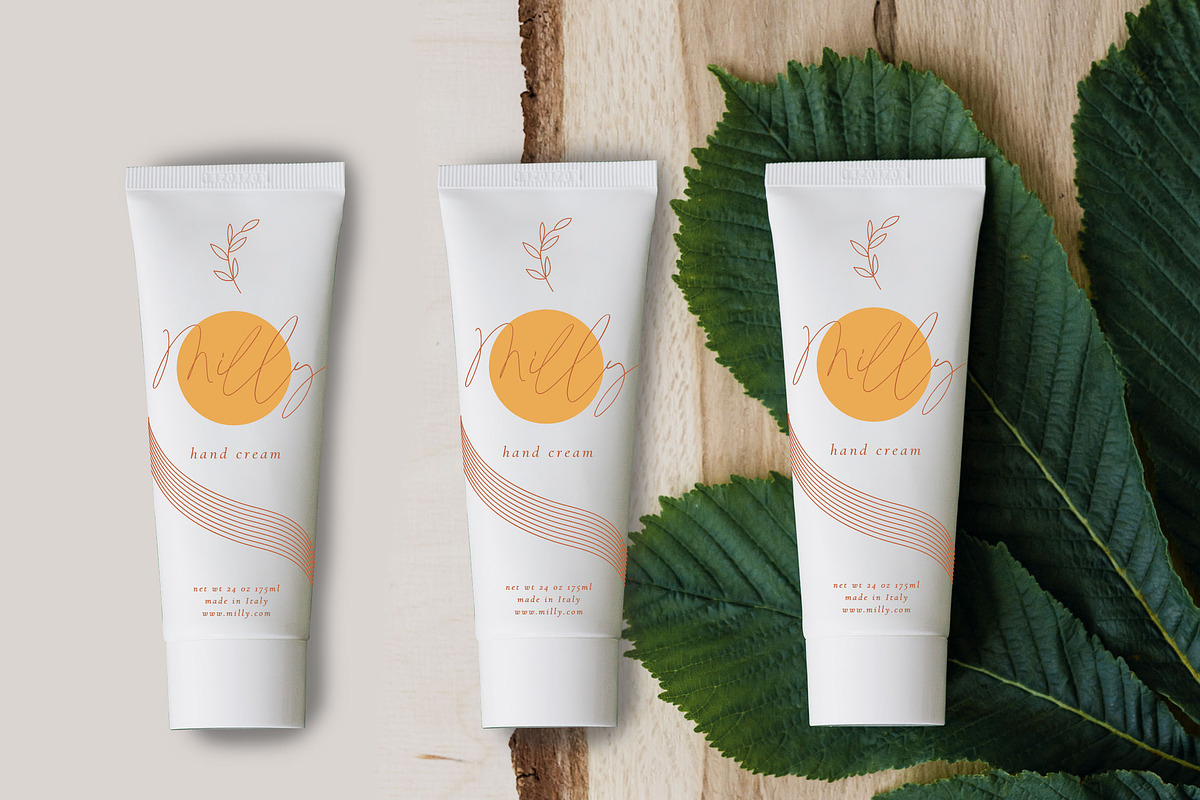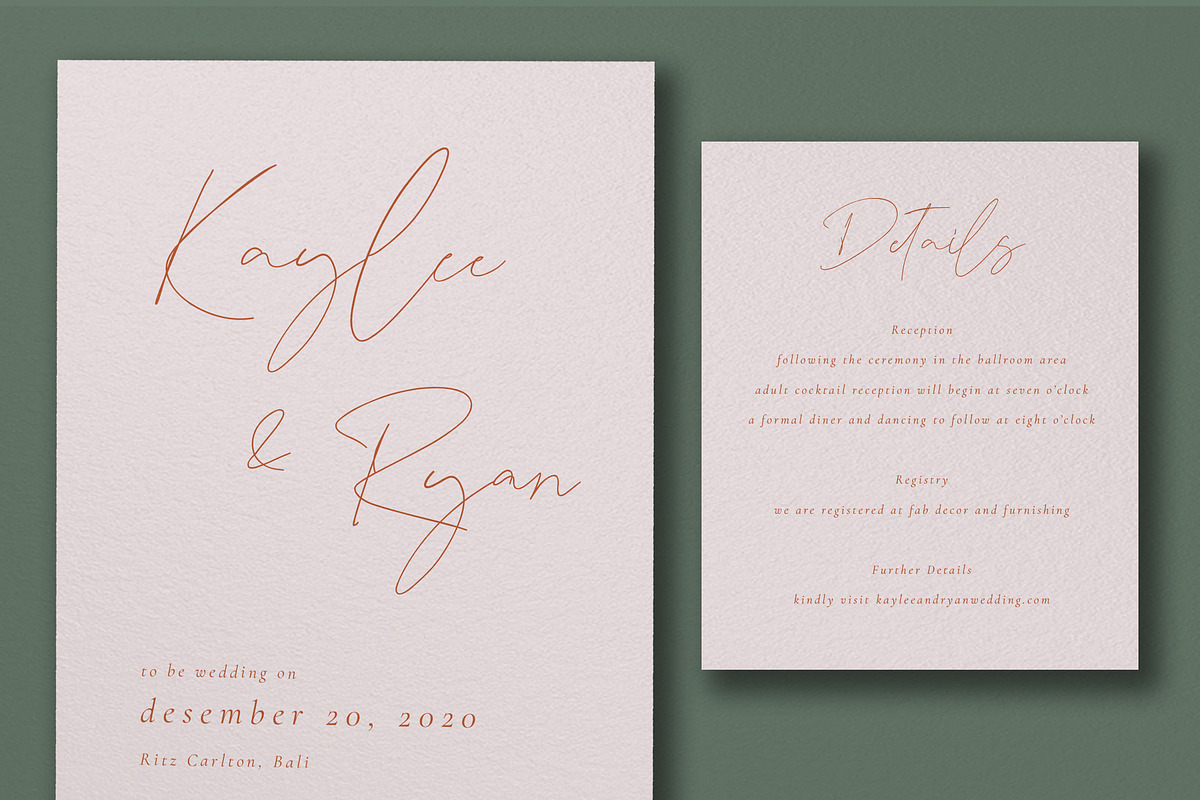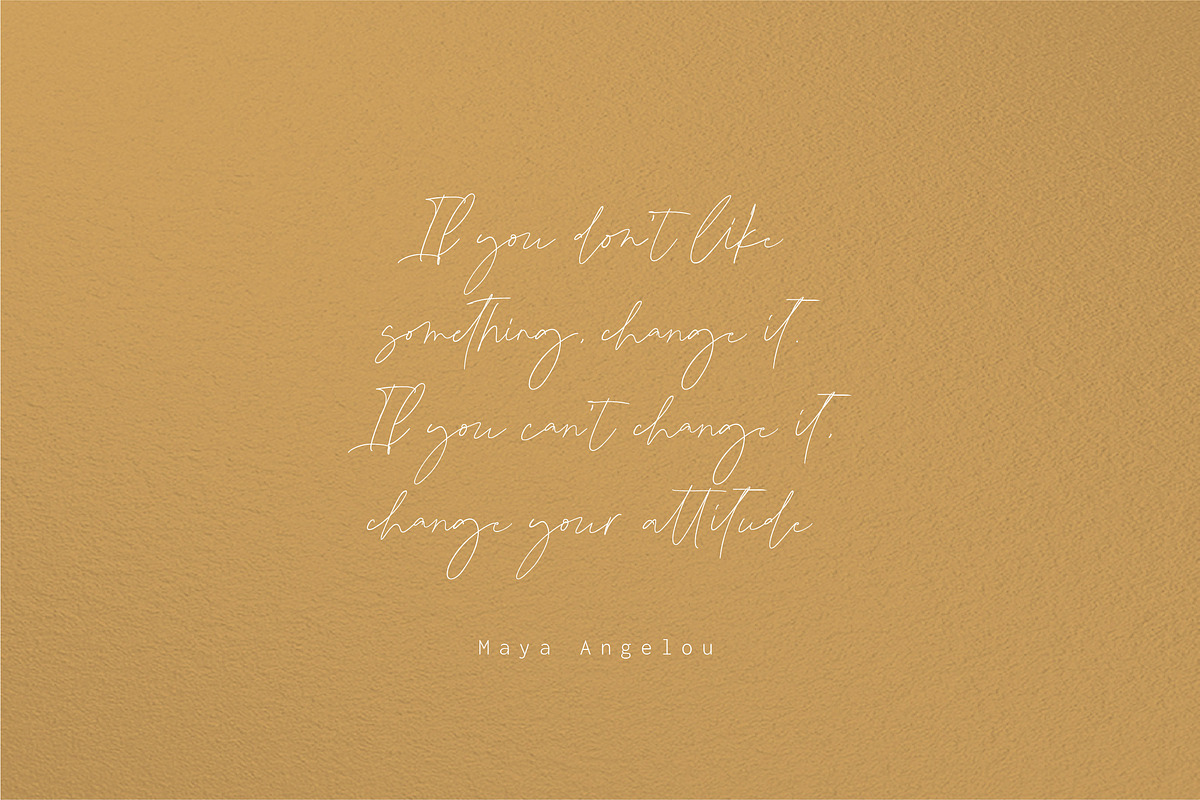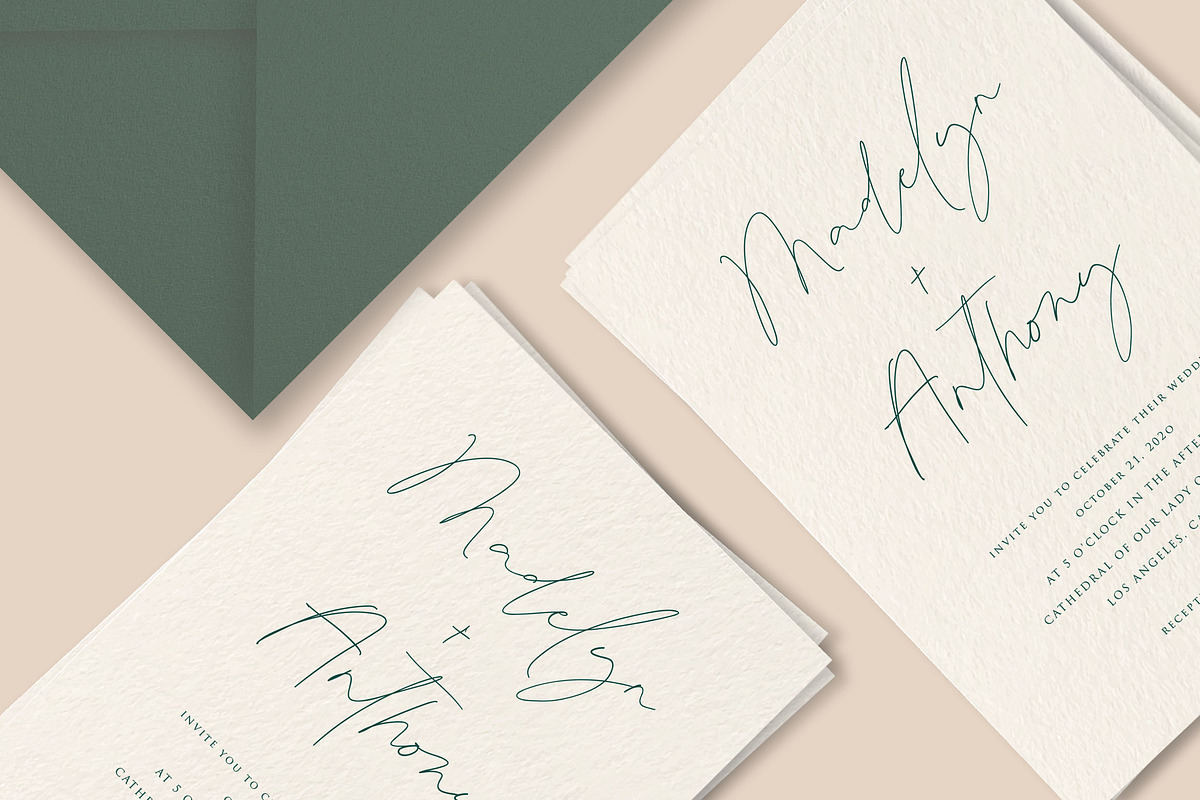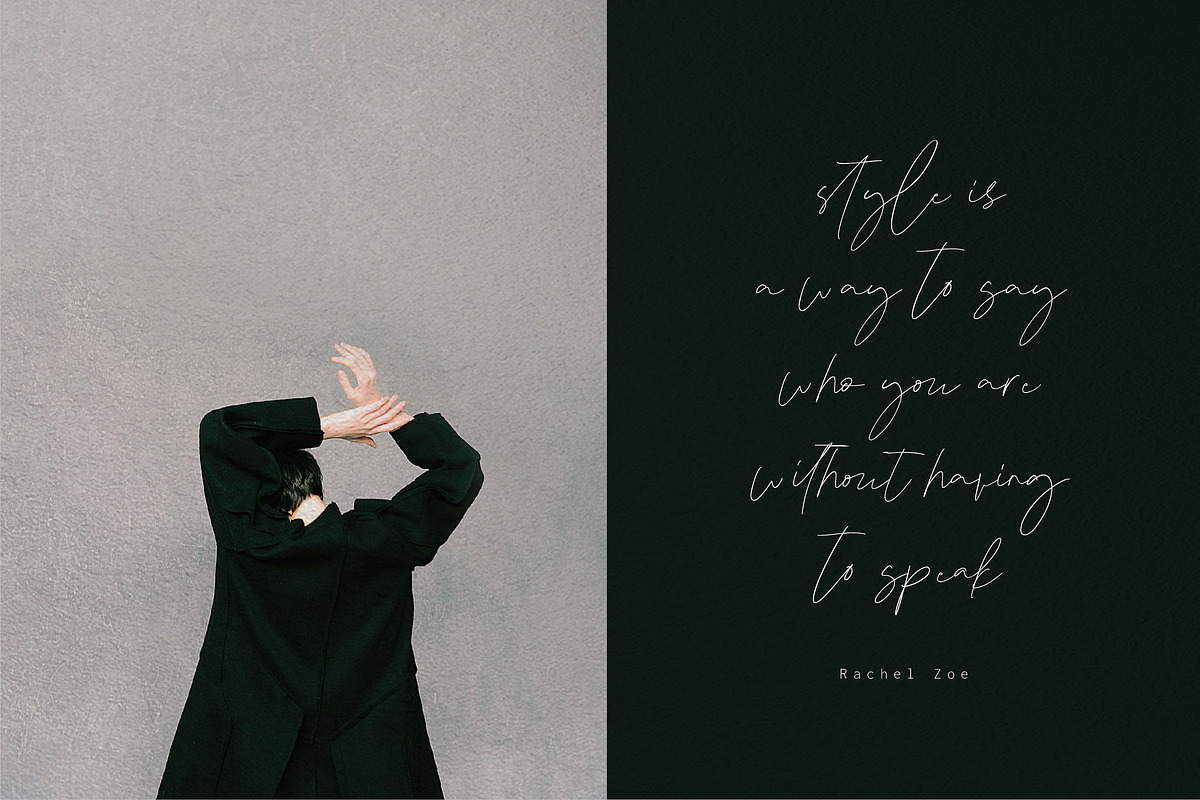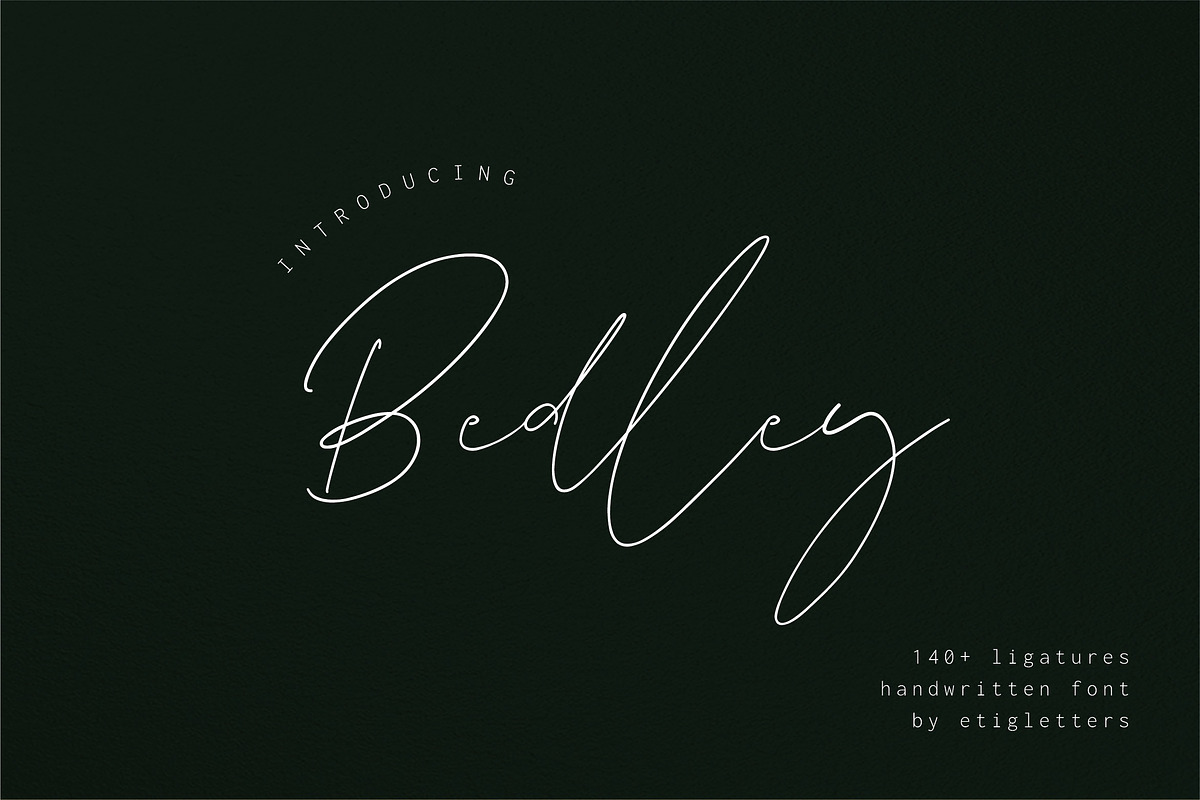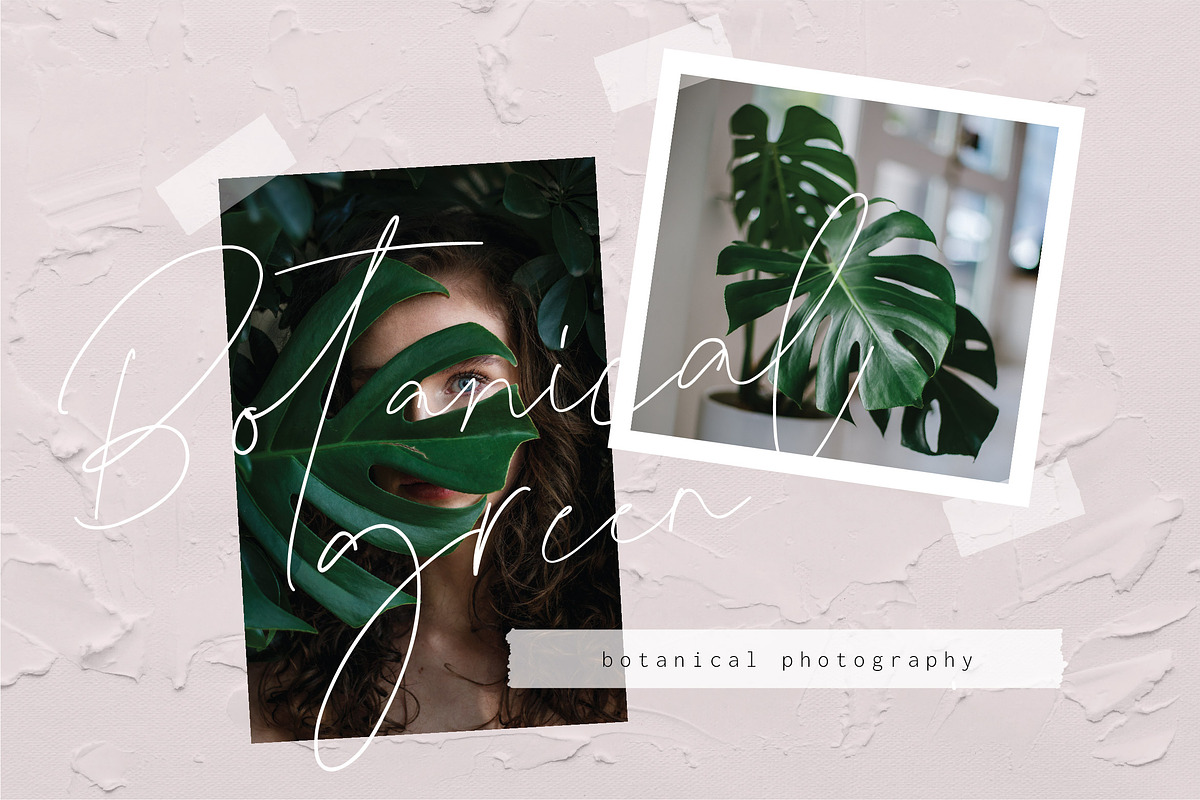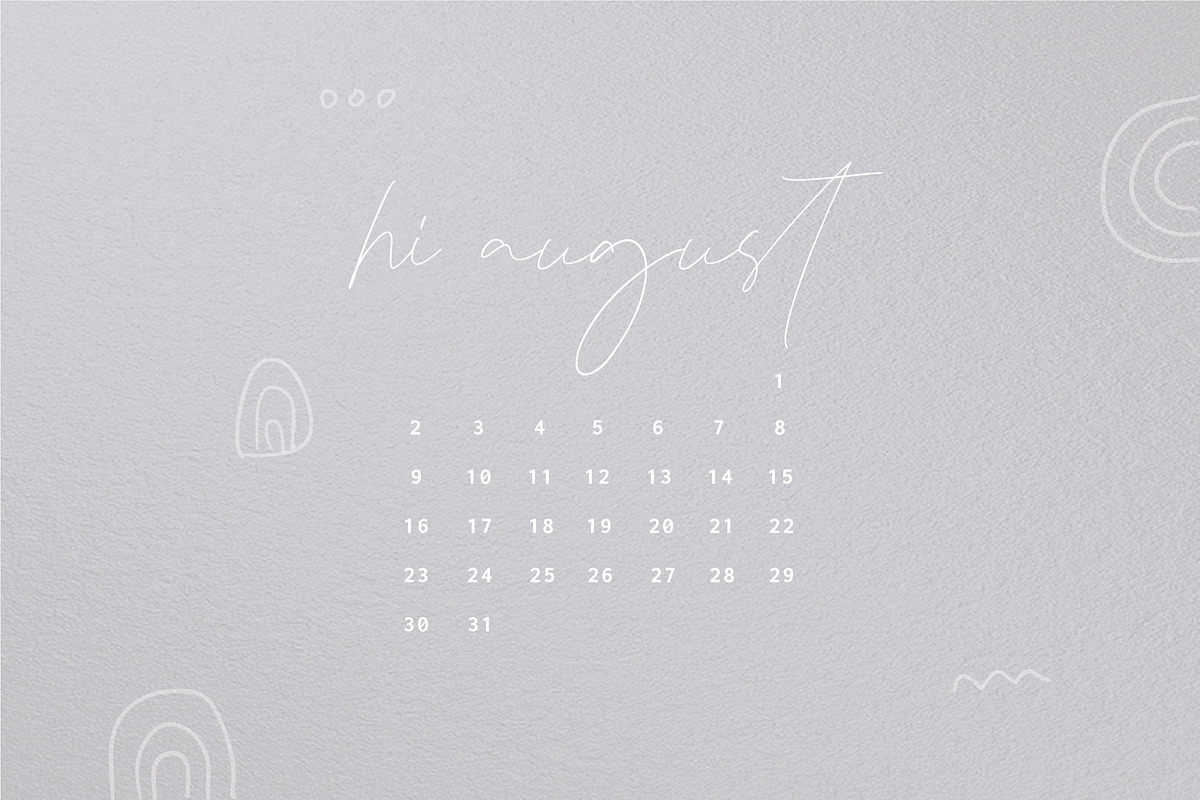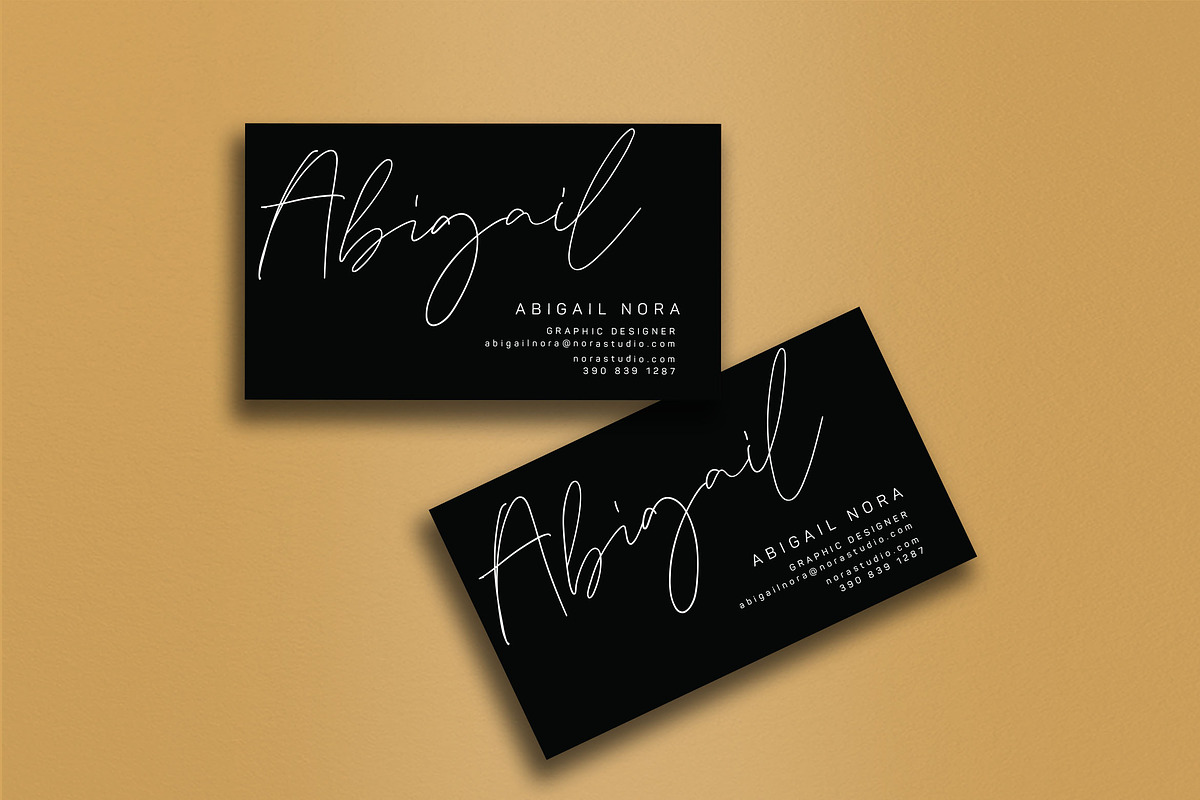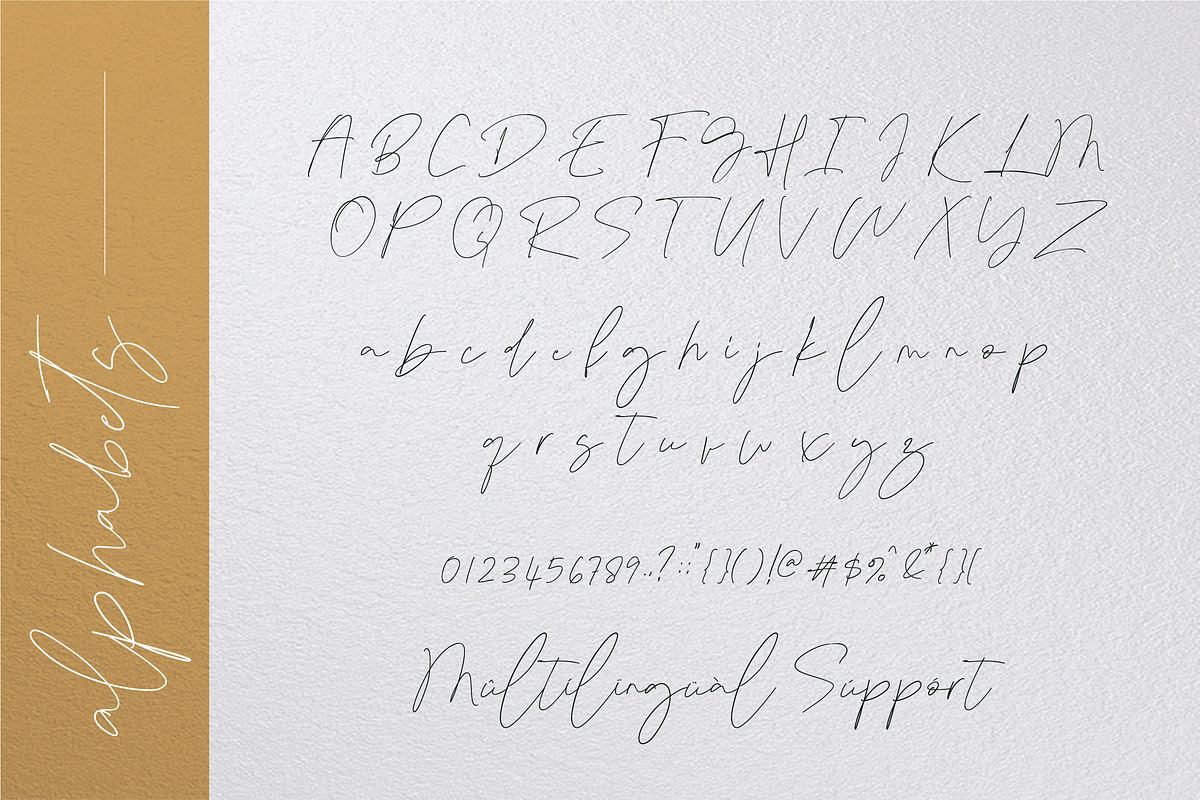
Bedley // Handwritten Font
Introducing Bedley font is a handwritten font with a signature style and bouncing character. Bedley can be used for various types of design needs such as branding materials, promotional flyers, social media templates, business cards, logos, t-shirt, posters, and more. Bedley also suitable to be combined with sans serif that will make your design more perfect.
Bedley includes full set of uppercase and lowercase letters, numerals, and including over 140 ligatures. Bedley is also support multilingual and already PUA Encoded!